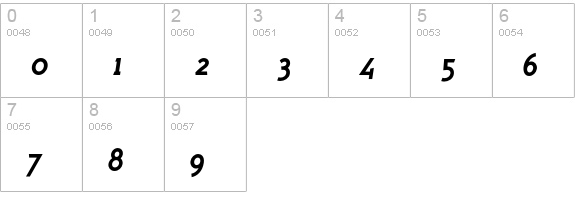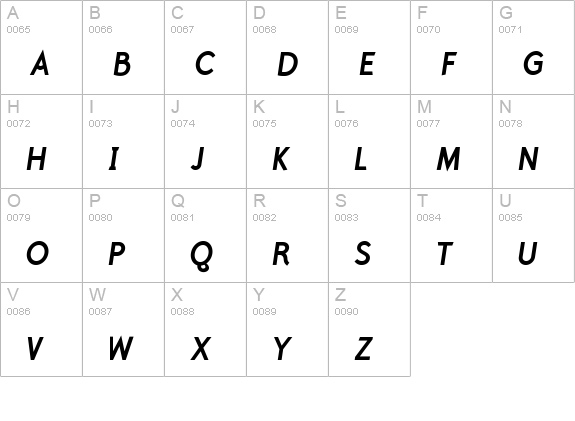
PolymerBoldItalic Font Details
PolymerBoldItalic is a modern and stylish font that combines boldness with elegance. Its unique design features sleek lines and curves that make it stand out in any project. The italicized style adds a touch of sophistication, making it perfect for headings, titles, and other design elements that need to make a statement. This versatile font is free to download at FontsMarket.com, where you can access a wide range of high-quality fonts for your creative projects. Whether you're designing a website, creating marketing materials, or crafting a logo, PolymerBoldItalic is sure to elevate your work with its bold and italicized charm. Grab your free download today and add a touch of modern sophistication to your designs.